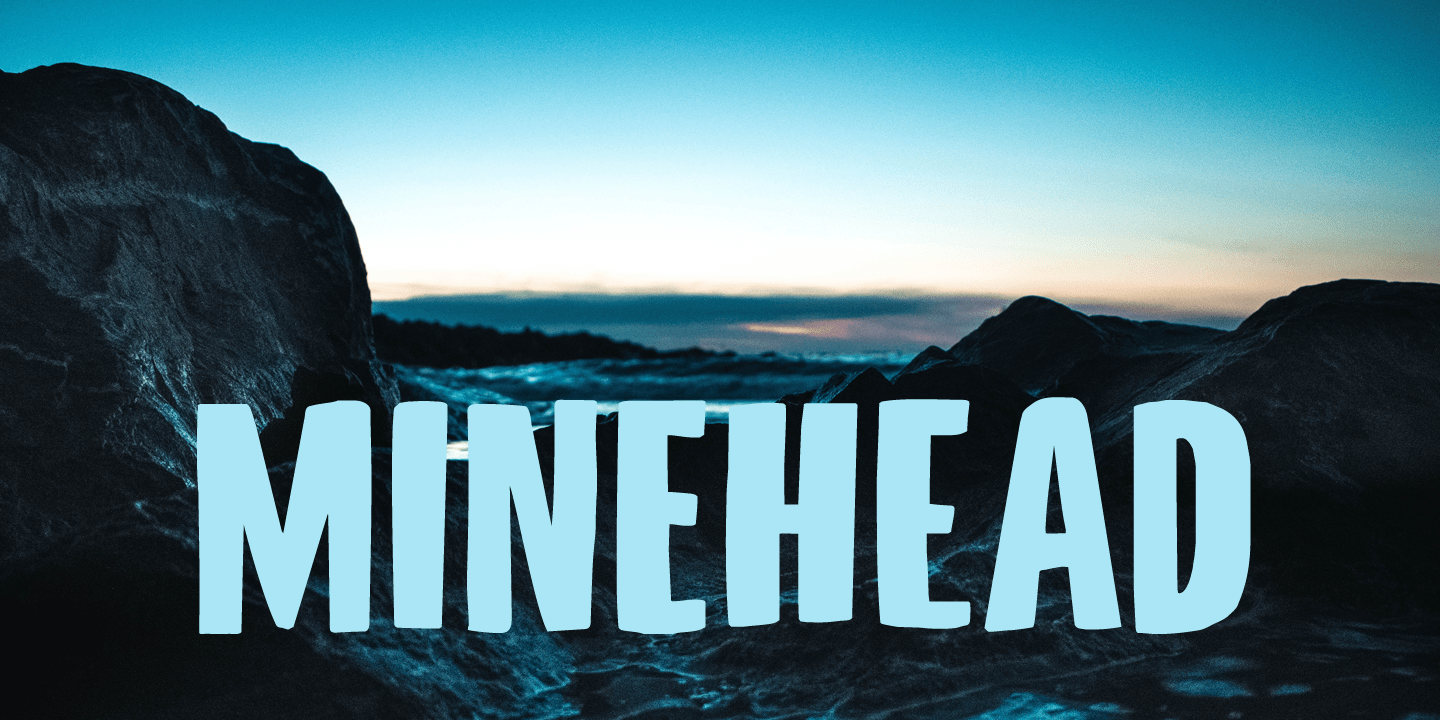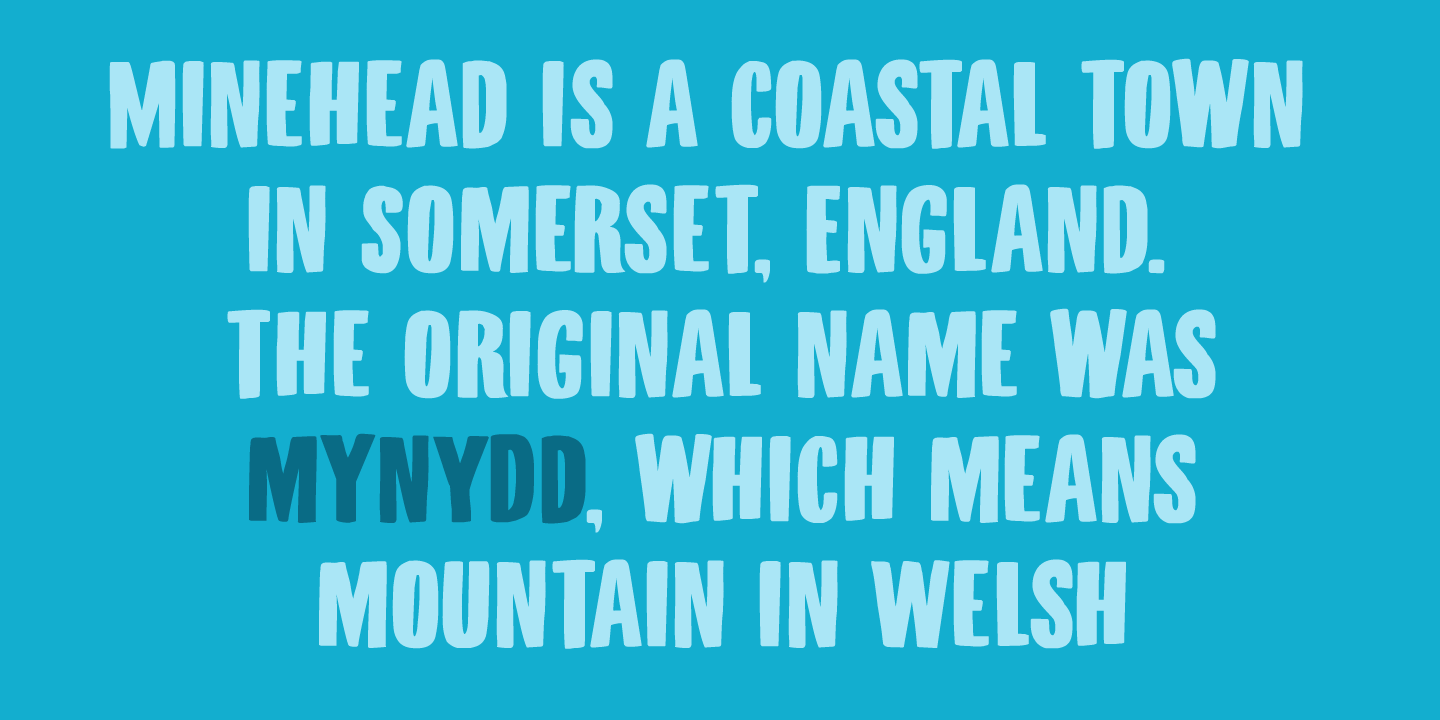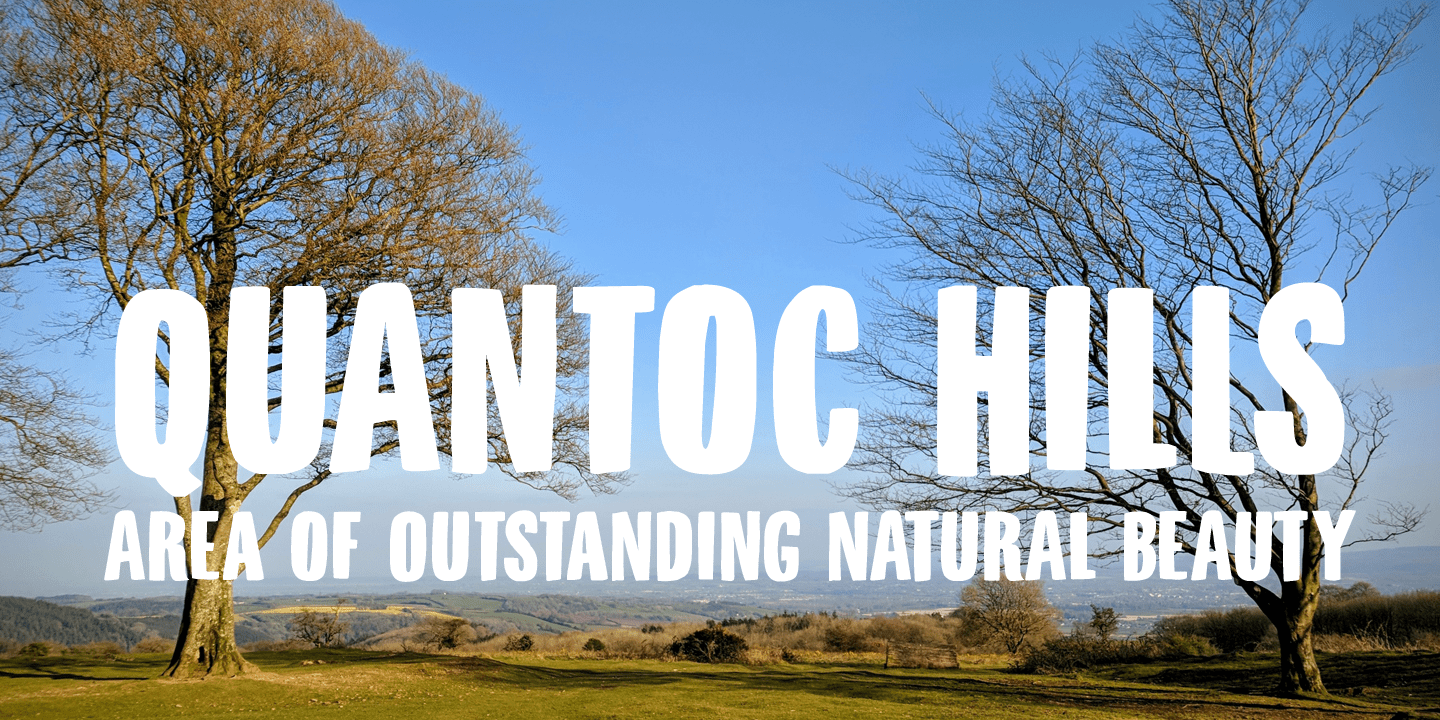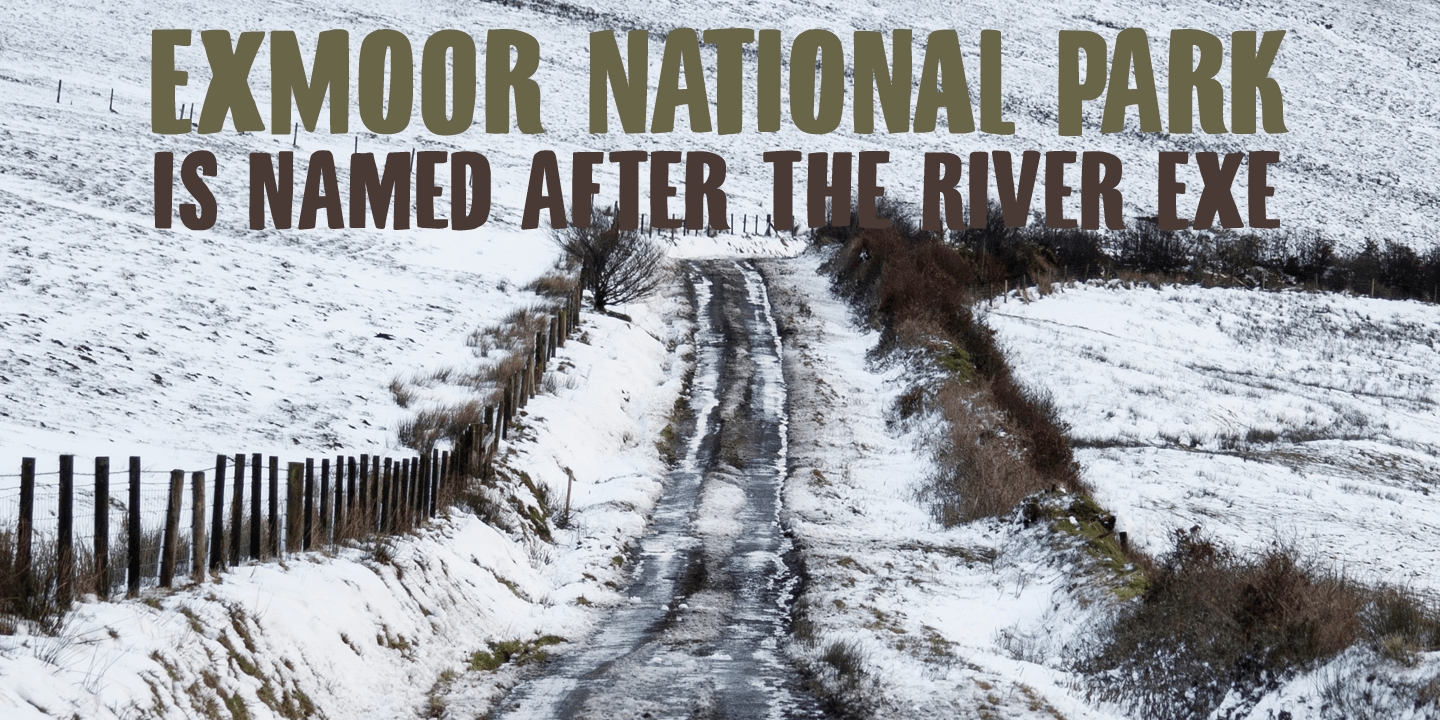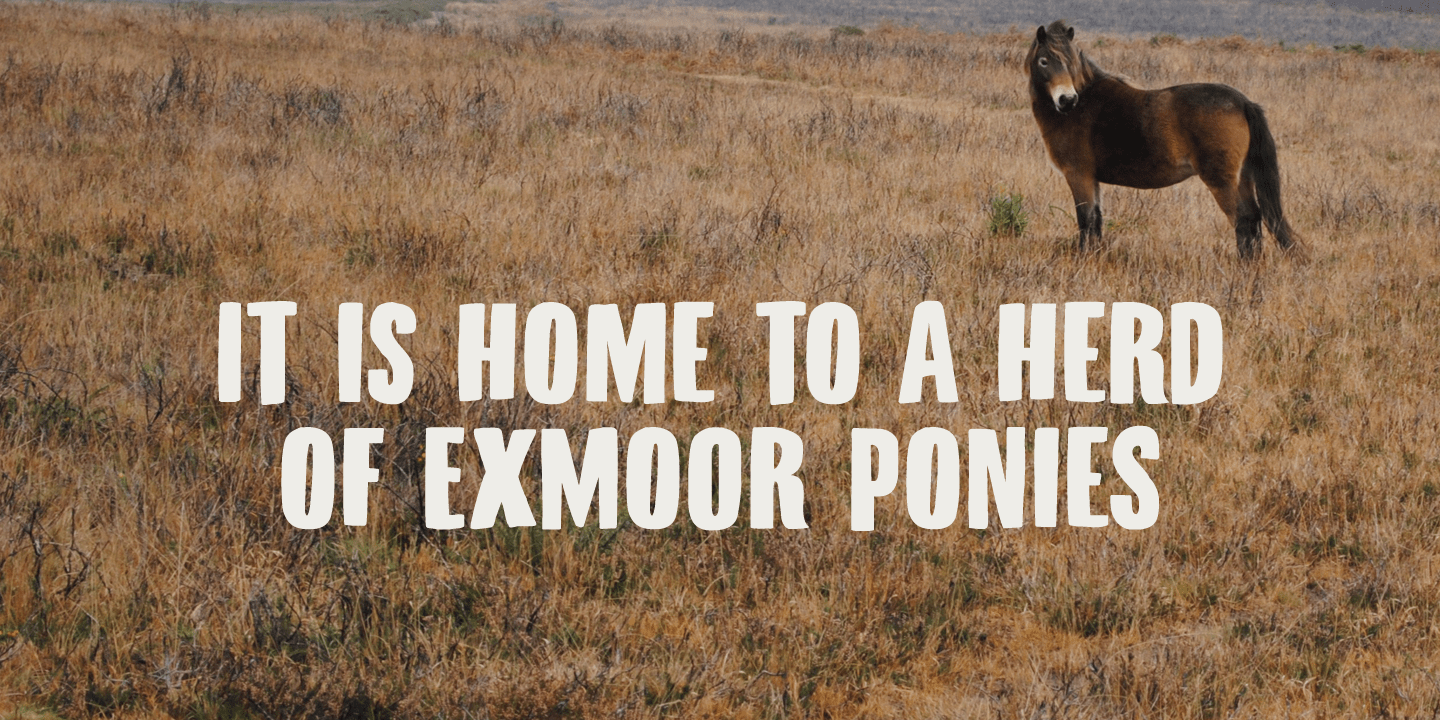
Minehead
As a family, we love to go camping. We have a big Norwegian tunnel tent (4 season - with room for a wood stove), some really warm down sleeping bags and a primitive field kitchen. Even though our camping trips are usually devoid of luxury, the kids love them! We always choose campsites that are close to nature, like a national park or in the mountains.
A couple of years ago, we toured the southern part of England and one of our camping stops was in Exmoor National Park. Minehead is a small coastal town, not far from where we camped, so I named this font after a fond memory!
Minehead is a handmade display font. It was loosely based on Haettenschweiler. Use it for your packaging, your tourist information leaflets and your book covers. And do visit Minehead one day!